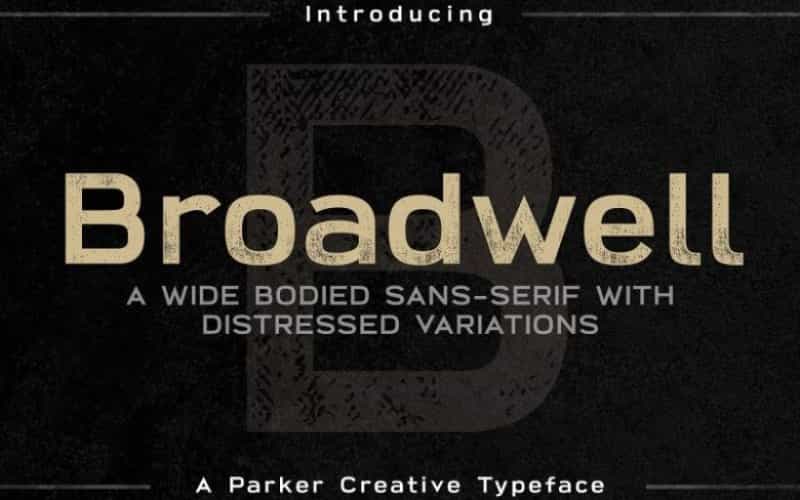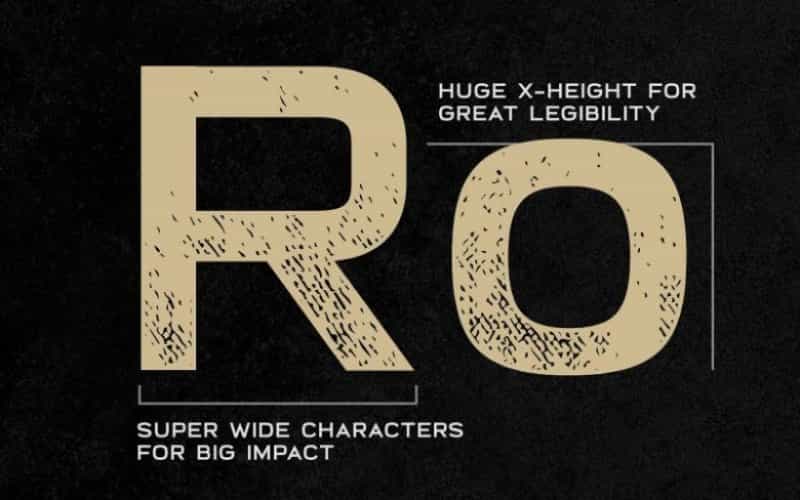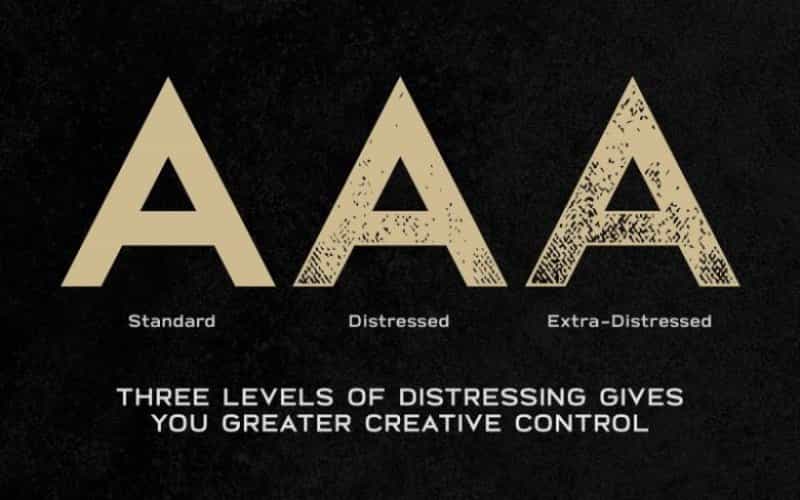
Introducing Broadwell, a wide-bodied sans-serif with distressing variation. Broadwell oozes versatility grace by purity; the unparalleled, relentless look of German engineering is your way; and the all American appeal of wide-bodied.